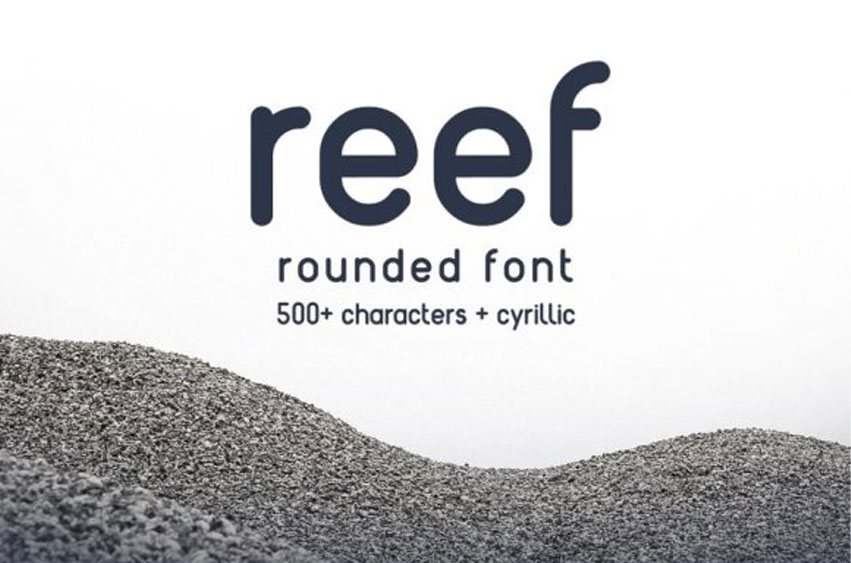
Reef Font
Reef Font is a rounded sans serif font, carefully handcrafted to become a true favorite.
This font will look outstanding in any context, whether it’s being used on busy backgrounds or as a standalone headline!